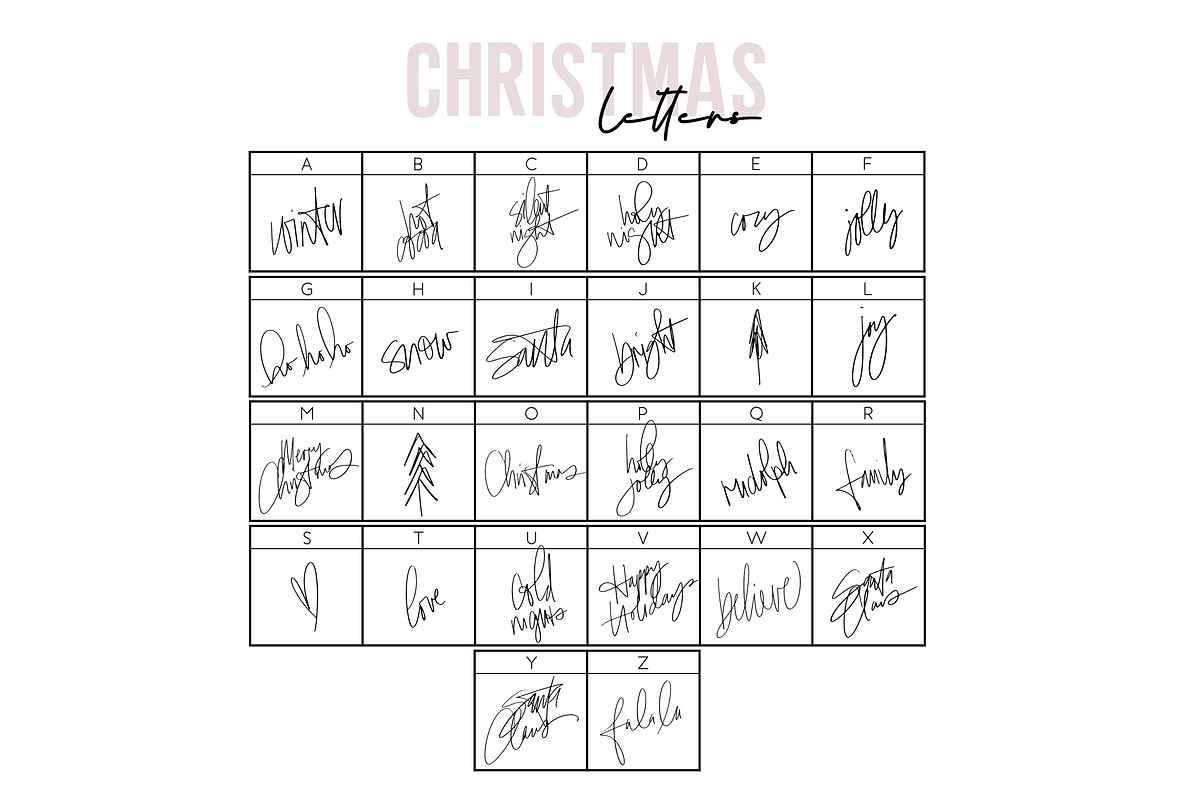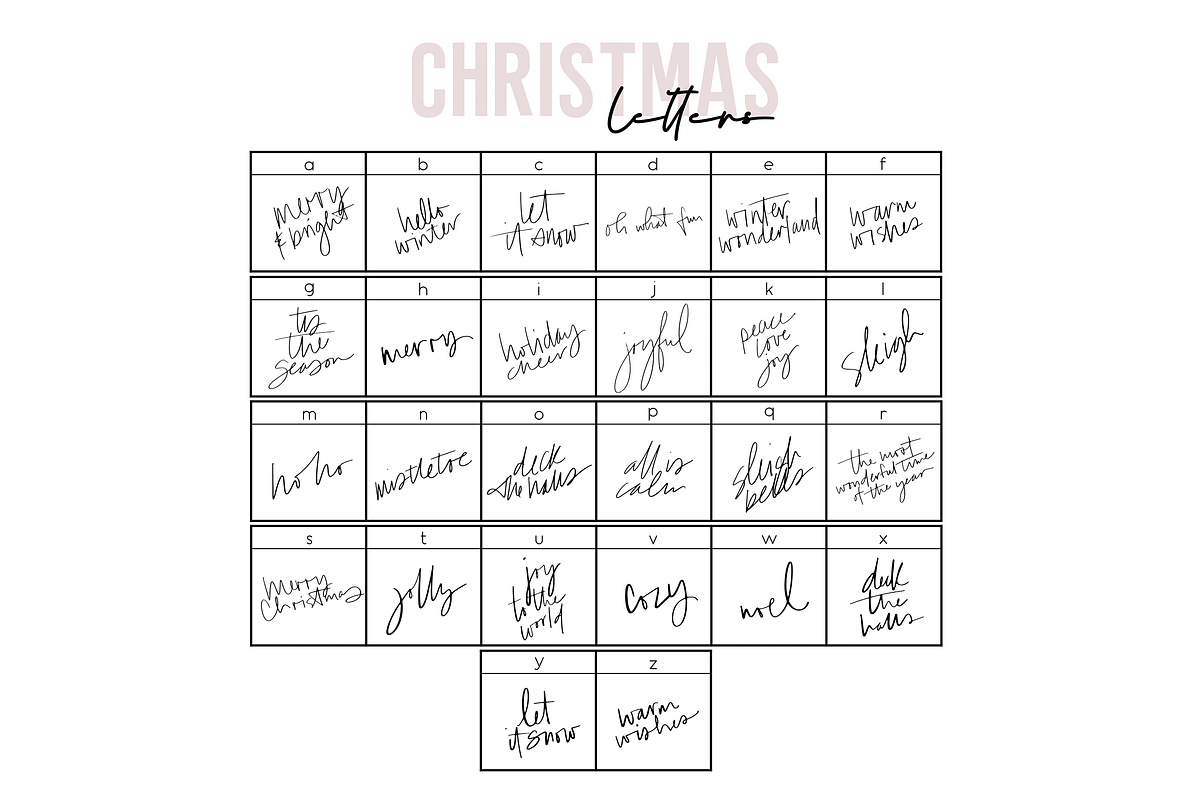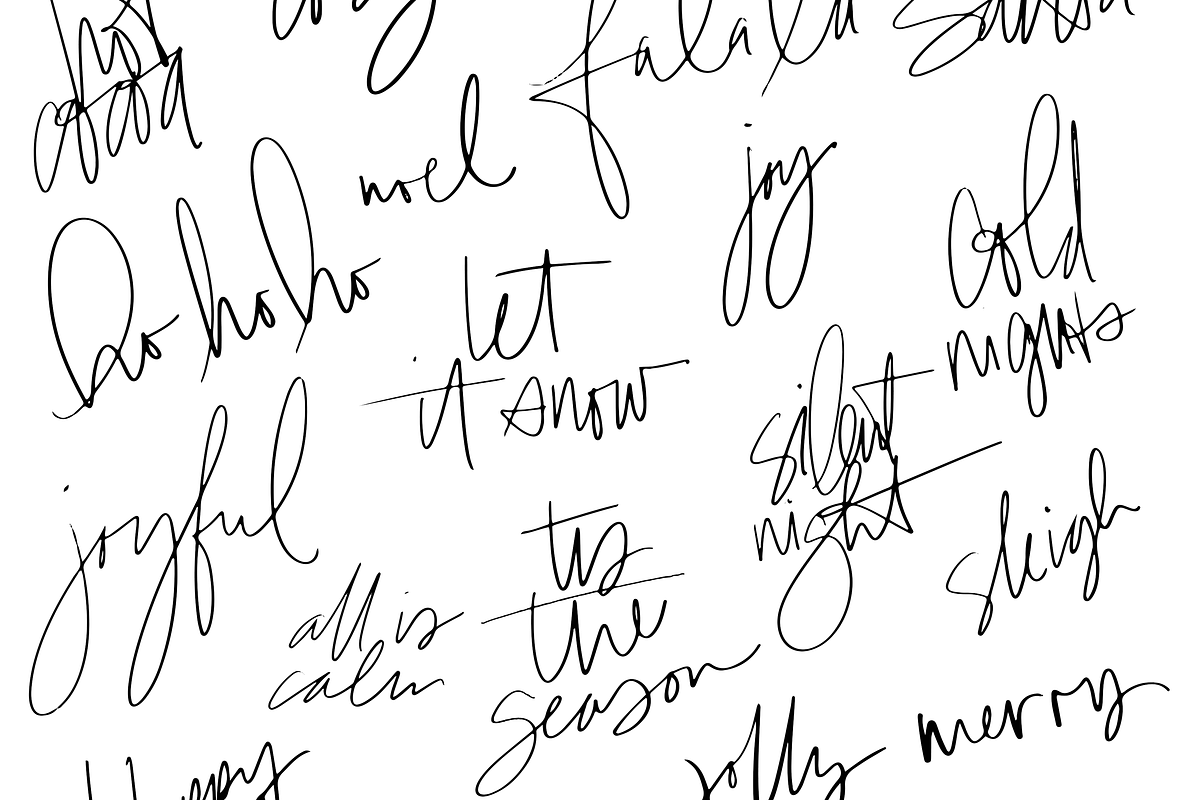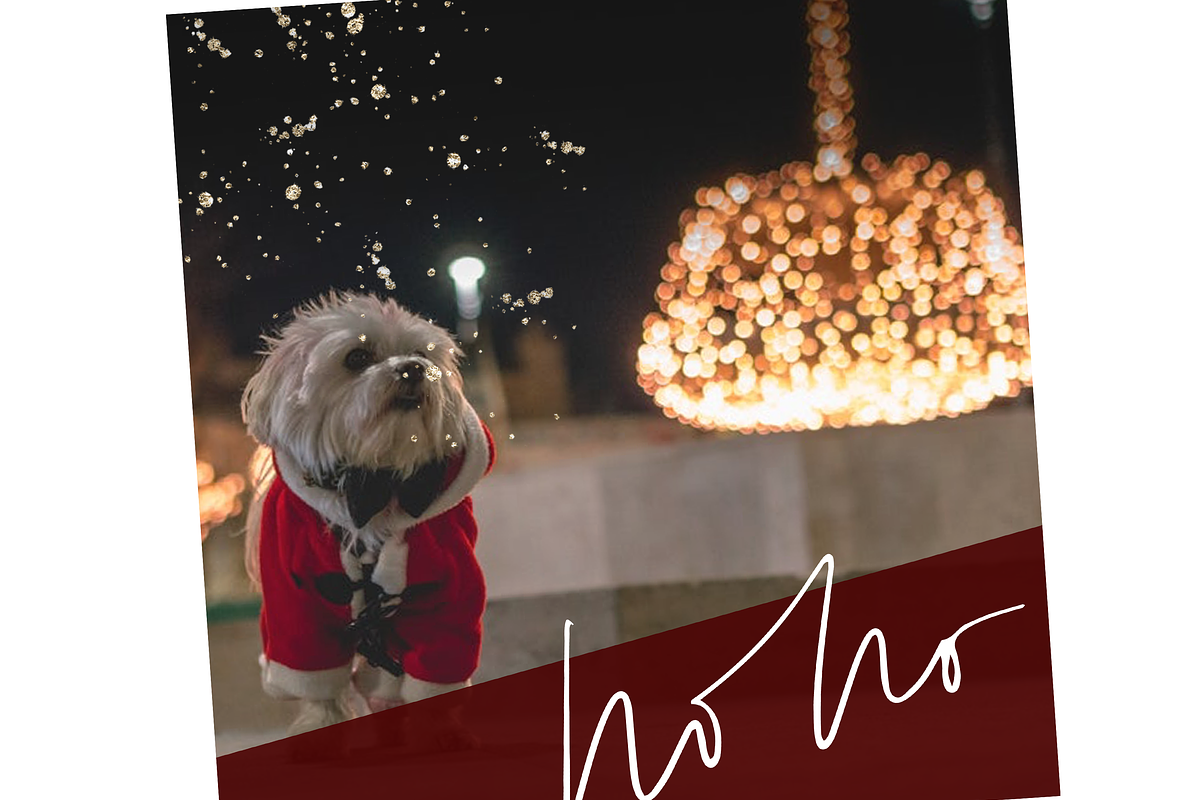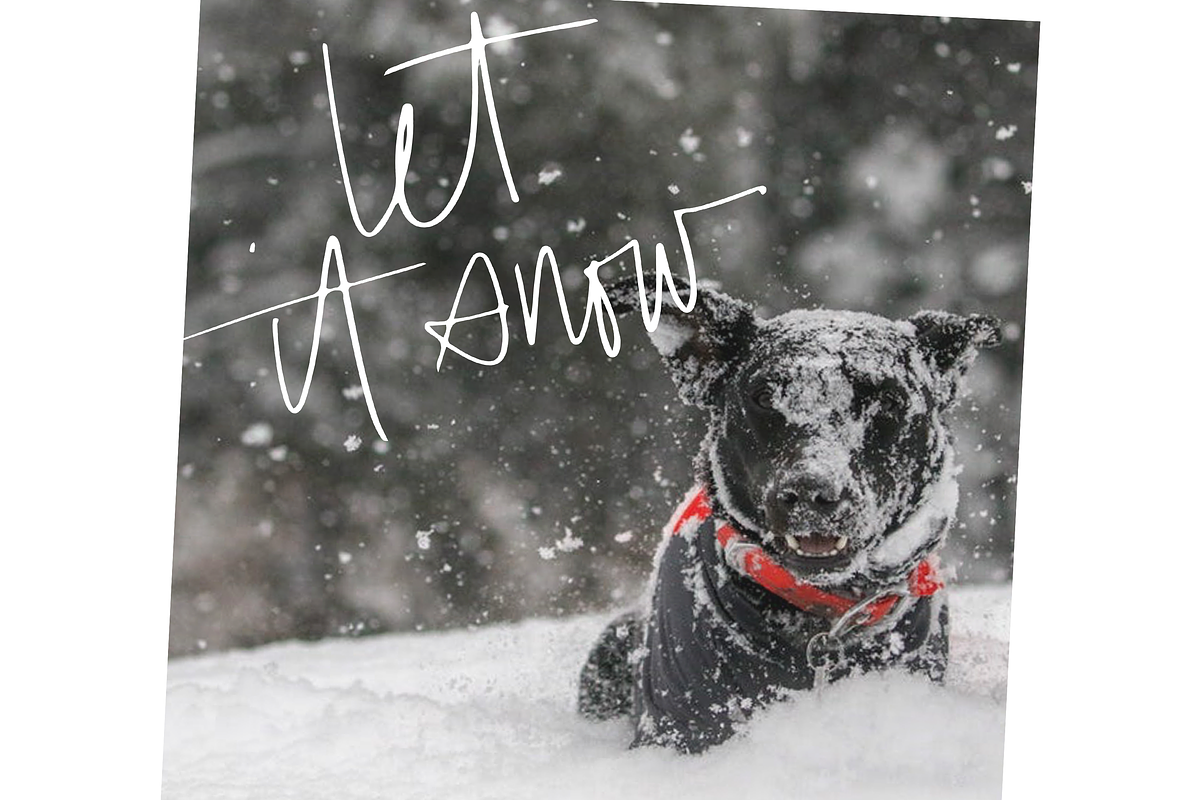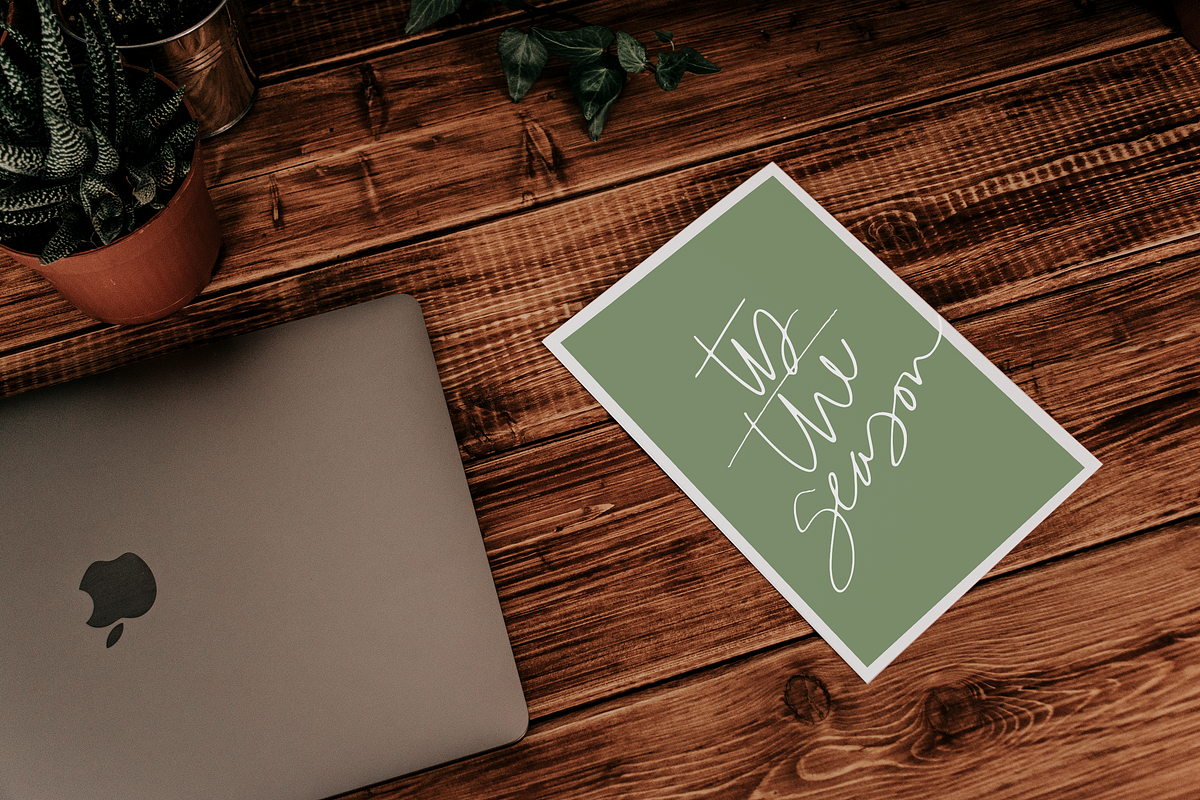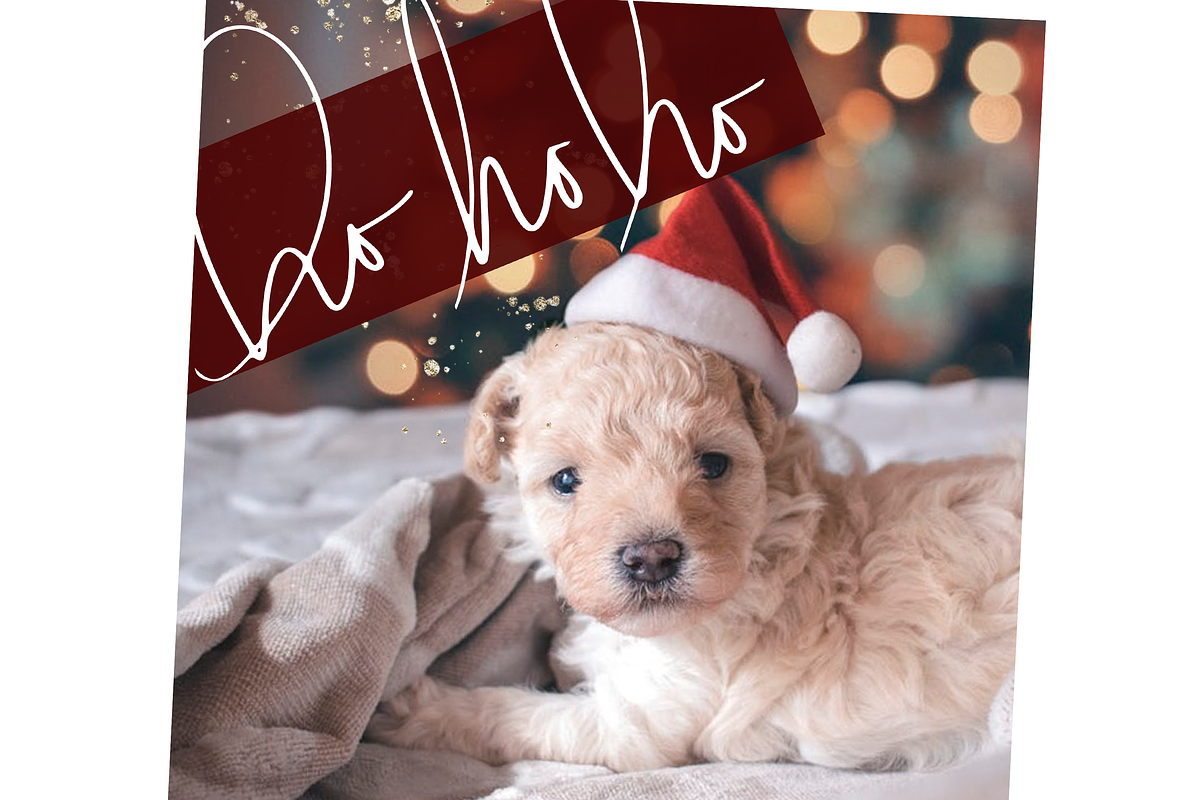
Christmas Phrases - Overlays Font
They are accessible by using the A-Z & a-z keys.
Each phrase has been hand-lettered with a brush pen.
The brush pen gives the doodles a realistic and unique appearance.
This font is most suitable for decoration.
It is perfect for photo overlays, holiday cards, instagram quotes, gift tags, planners and more!
- The Christmas Phrases font includes 52 holiday words and phrases.